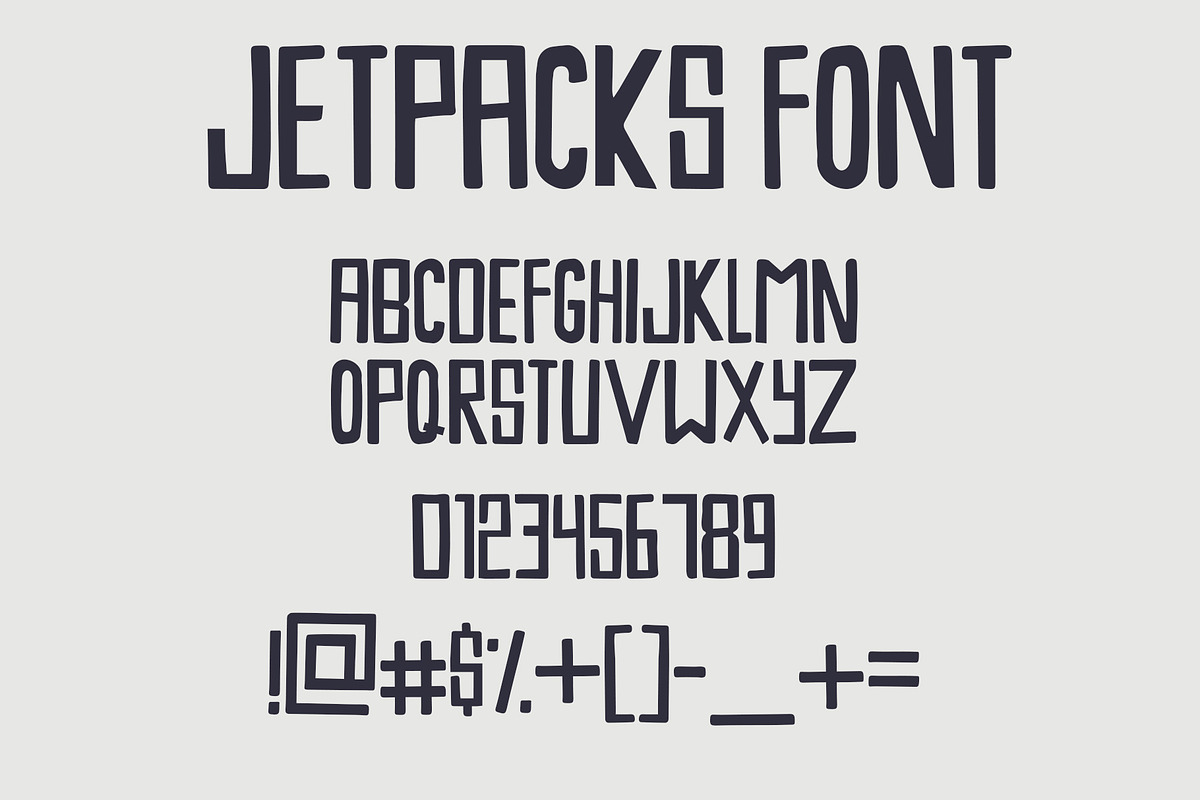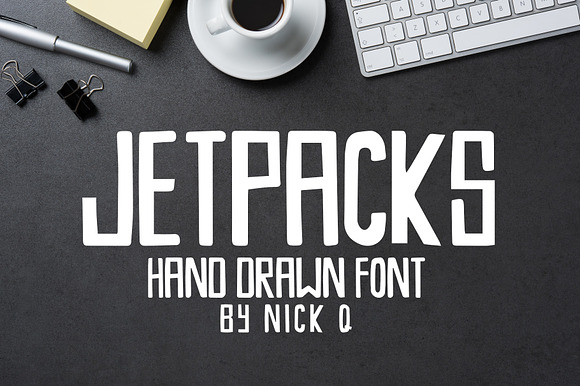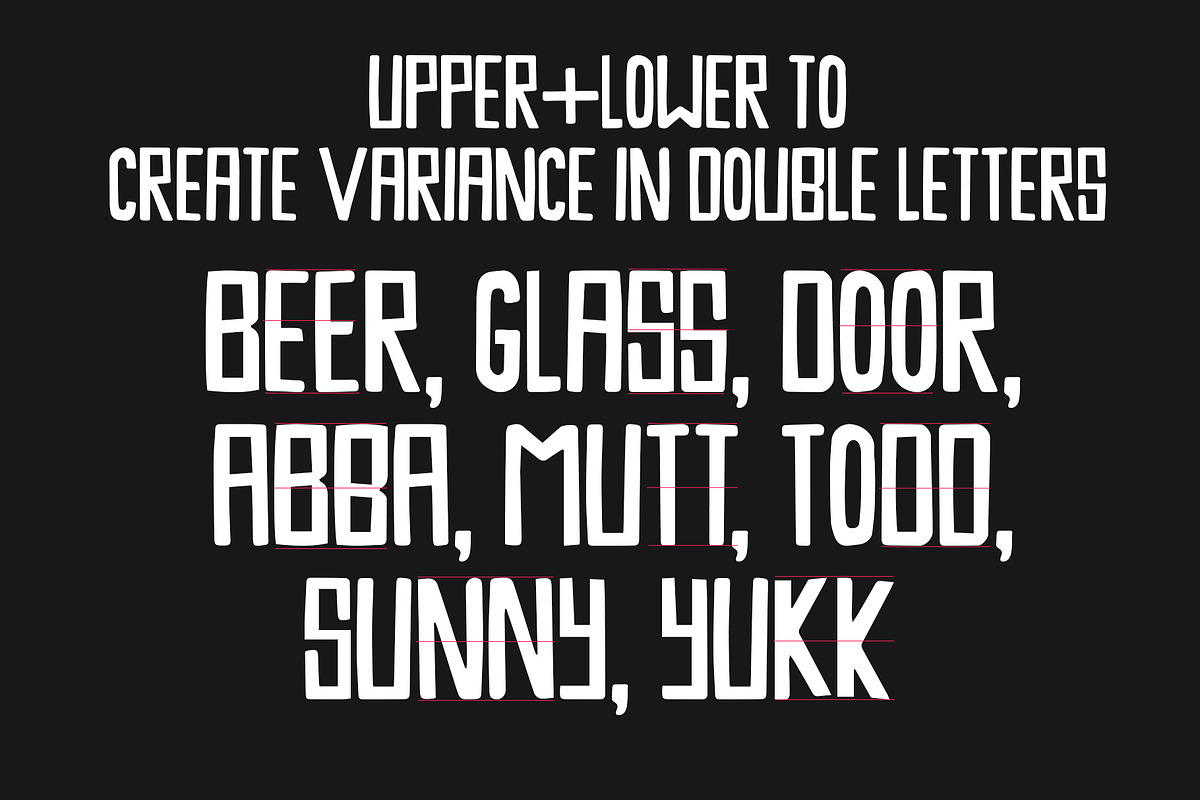
Jetpacks - Hand Drawn Font
Need to add a hand drawn touch to your project? Use my hand drawn font, Jetpacks, to get to your results faster!
Perfect for posters, flyers, band merch, t-shirts and more.
Each character was hand drawn in Illustrator. Purchase includes one .otf file with all uppercase characters, lowercase (uppercase variants), numbers and some symbols.